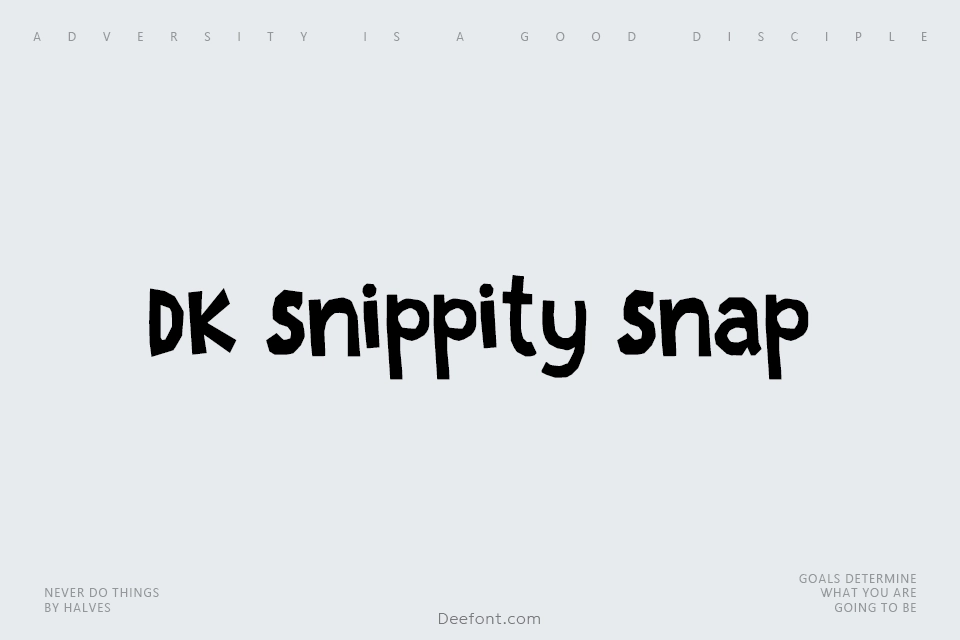
DK Snippity Snap Font
DK Snippity Snap is a playful and whimsical display font created by Hanoded. This demo version features charming, hand-drawn characteristics with organic curves and bold lines, perfect for adding personality to creative projects. The font bursts with energy and playfulness, making it ideal for posters, logos, children’s designs, and fun invitations. Its unique hand-crafted aesthetic combines modern sensibilities with creative flair, ensuring both legibility and visual appeal for any design that needs a touch of excitement and whimsy.